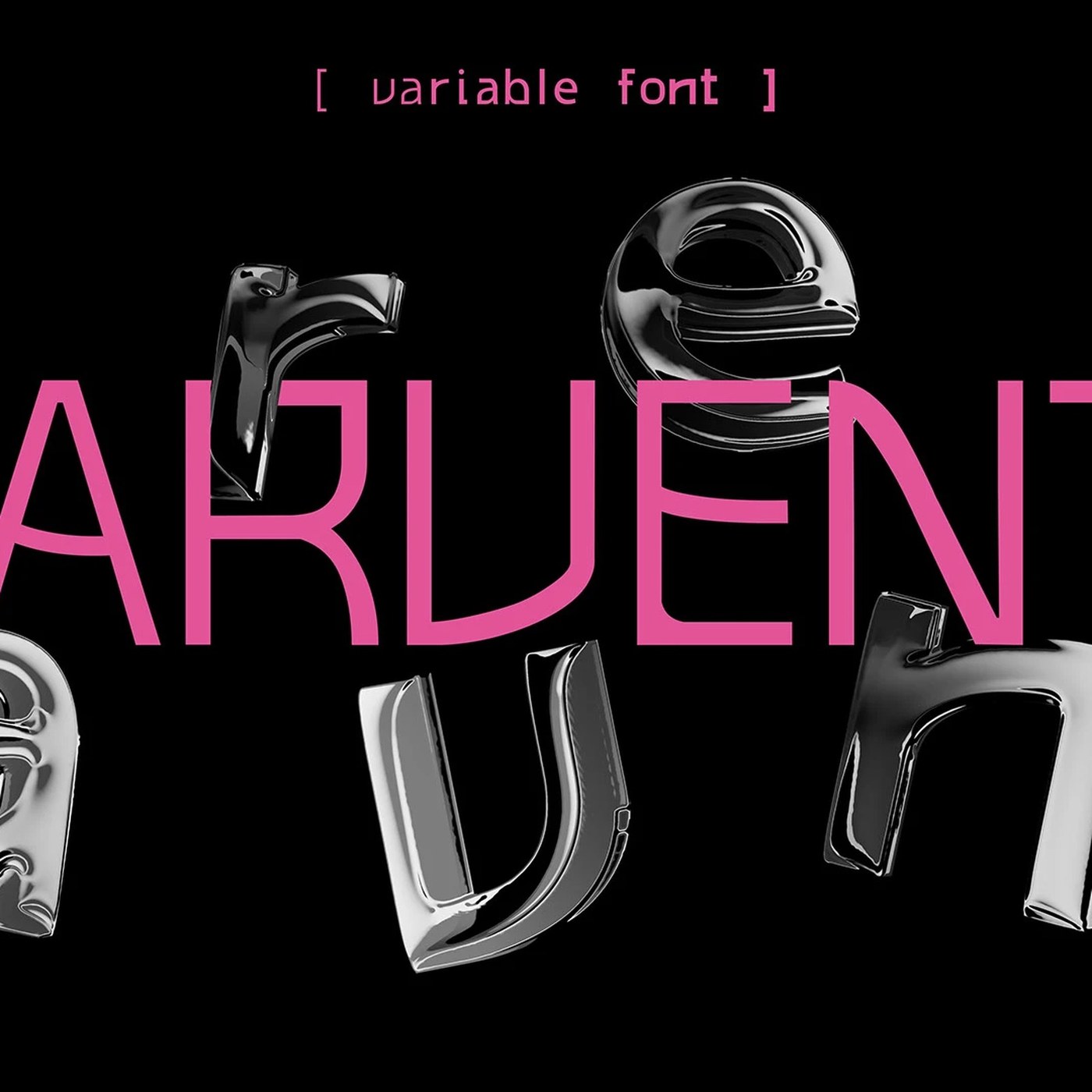
Marvento Variable Typeface Specimen: A Risograph Print Design by Gréti Horváth
A design project by Hungarian designer Gréti Horváth that translates digital type anatomy into physical form through a risograph print specimen booklet. The booklet showcases the Marvento variable typeface family across seven weights, from thin delicate strokes to heavy structured display masses, using overlay spot colors on textured stock to ground the digital letterforms in material reality.
· 3 pulledThe variable typeface specimen risograph print design project by Hungarian designer Gréti Horváth translates digital type anatomy into material weight.
Spanning seven distinct weights, the variable letterforms stretch from thin, delicate strokes to heavy, structured display masses.
Rather than displaying the typeface exclusively in digital renders, the project relies on physical print tests, utilizing overlay spot colors on textured stock to ground